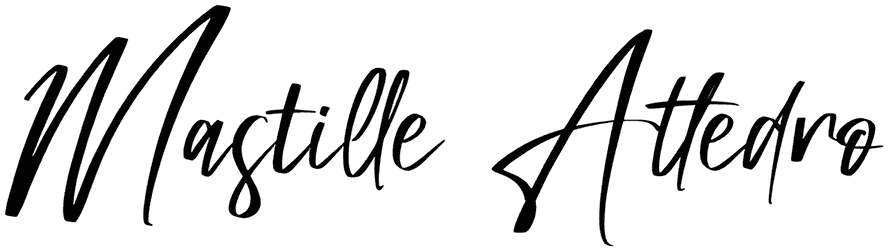
Mastille Attedro Font
Impressing the audience at first glance is not a difficult task anymore with the help of a script font such as Mastille Attedro, which comes with a cursive style that dances along the baseline.
Due to its sophisticated style, reading some of its characters would be a little bit tricky, but it still has the real potential to bring a sense of freshness, delicacy, softness, or professionalism to your creative ideas.